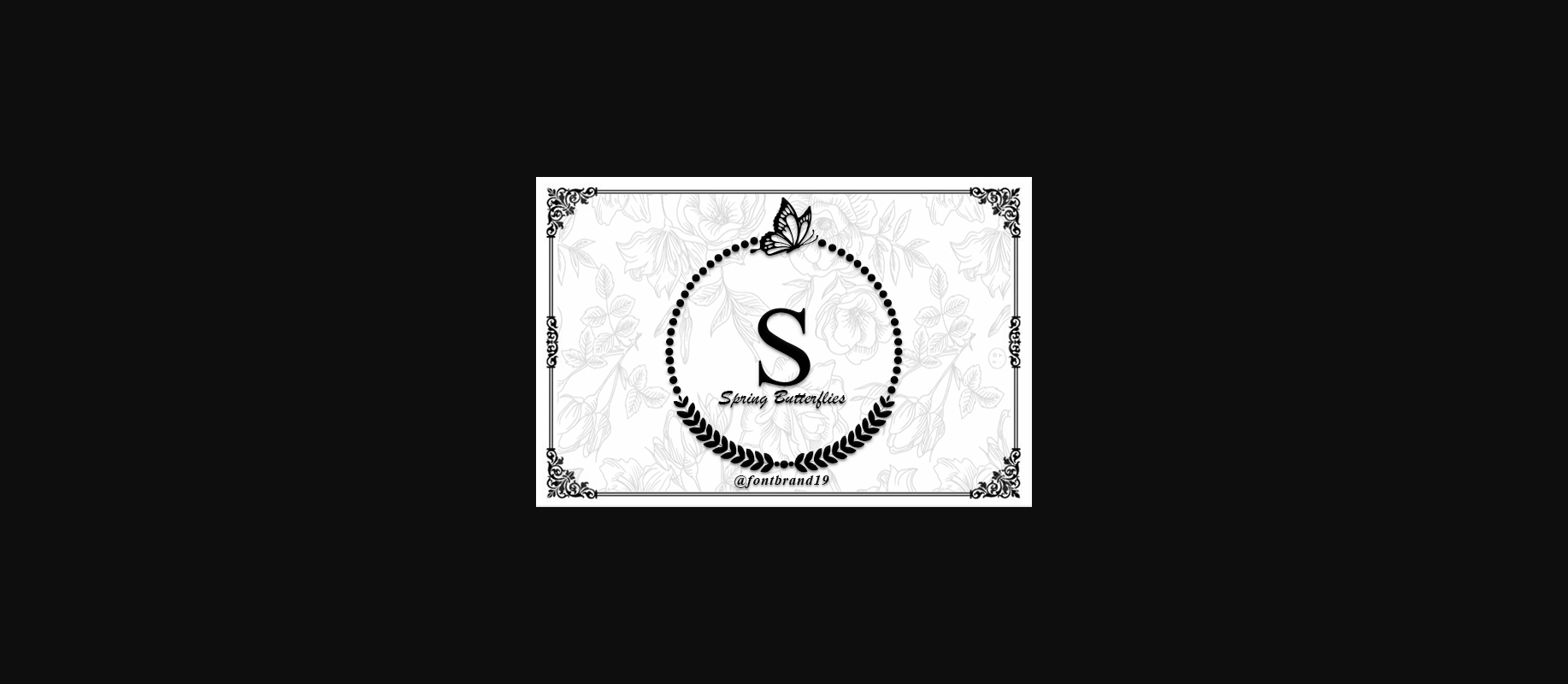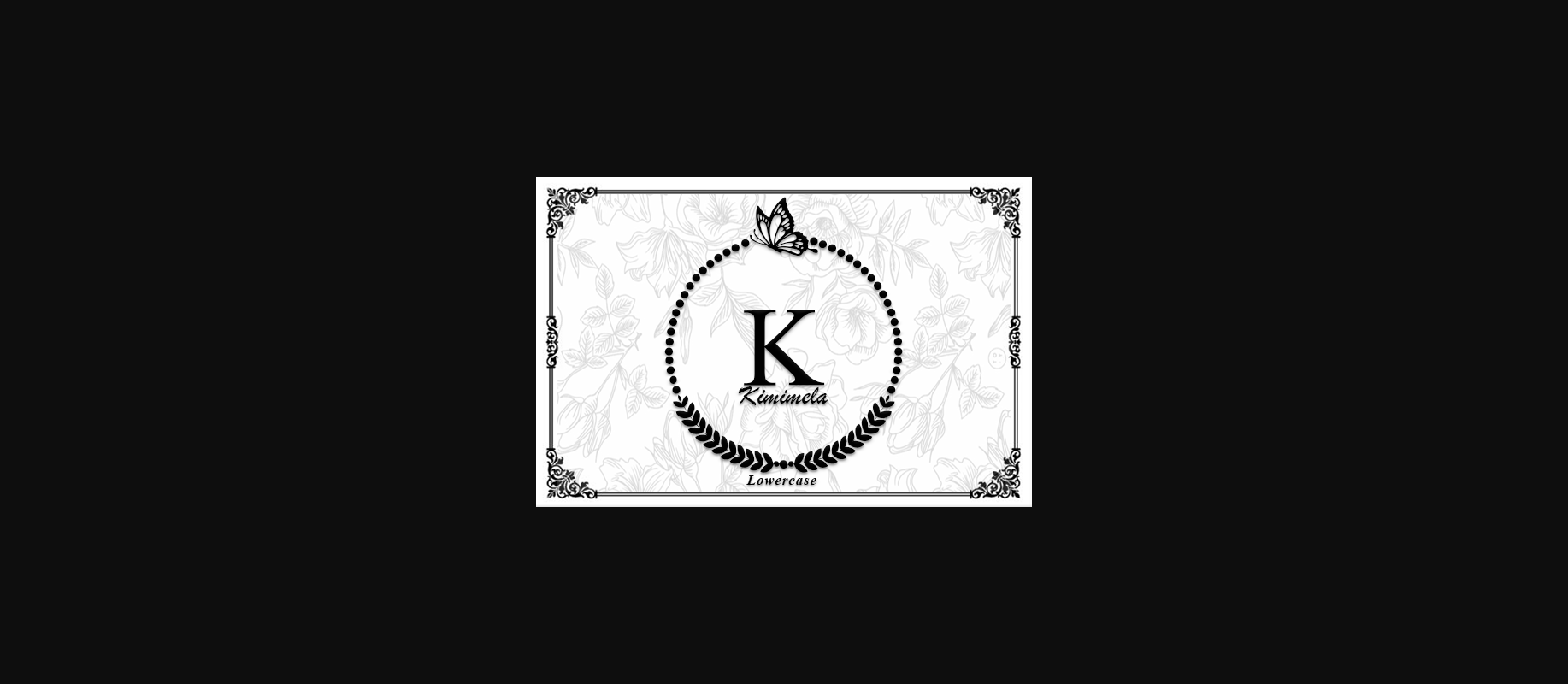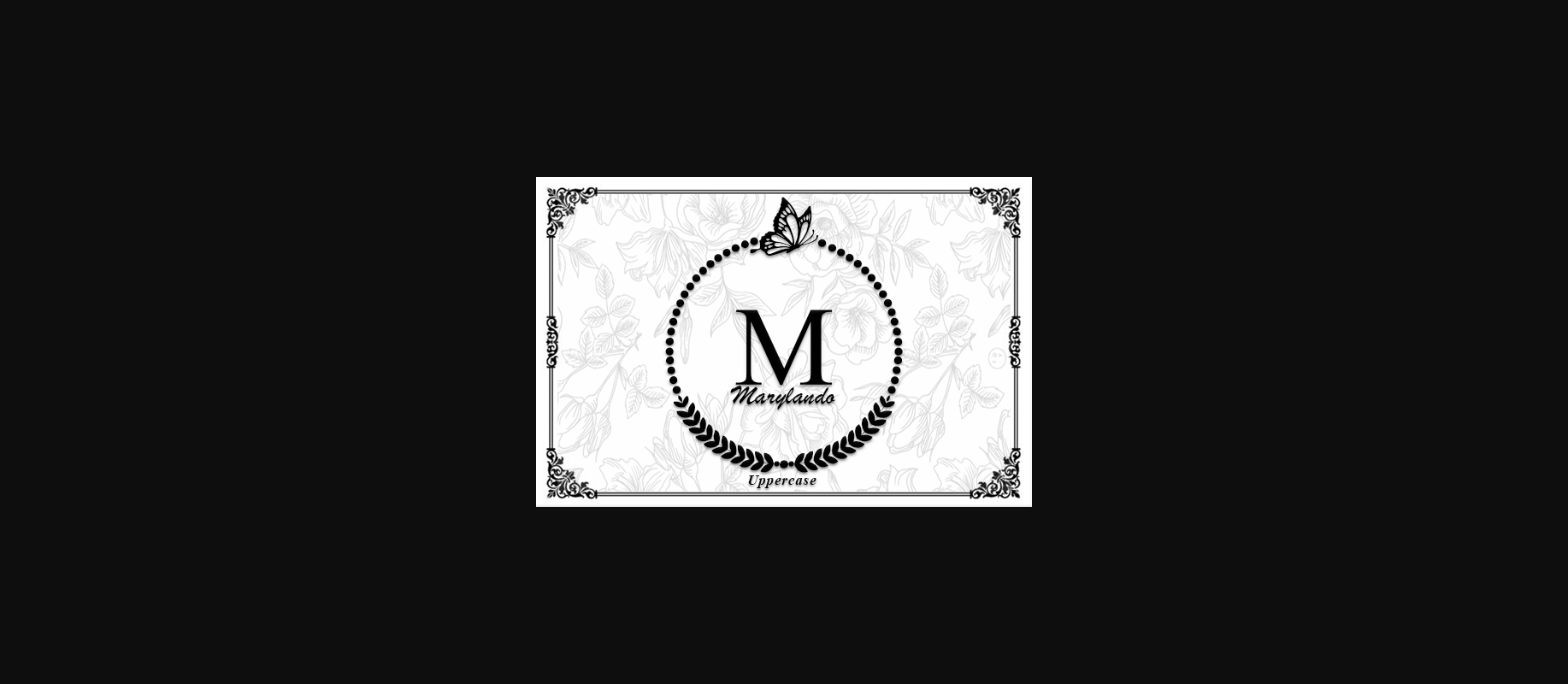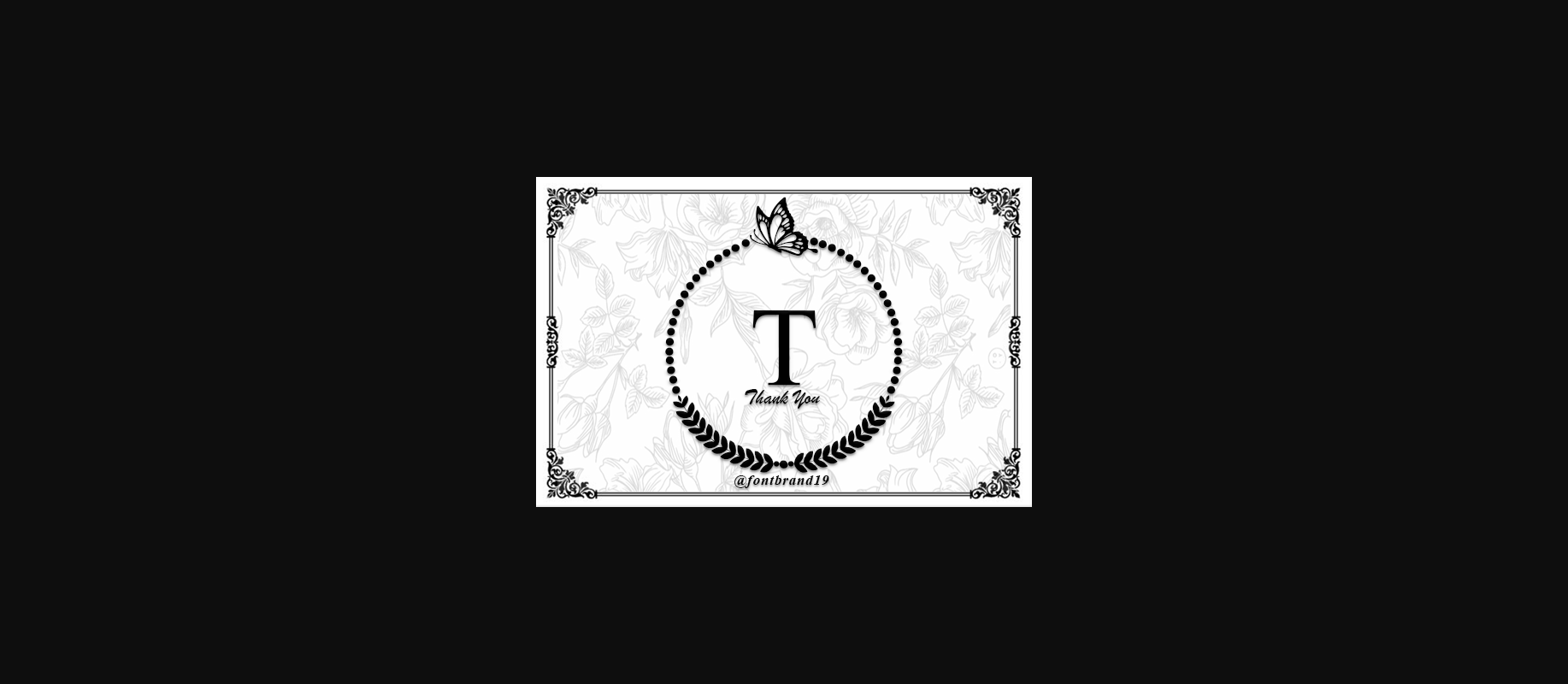
About Spring Butterflies Font
Spring Butterflies is a cool and uniquely crafted decorative font. Its fun and playful characters make it the perfect font for stickers, mugs, t-shirts, ornaments, Easter’s Day cards, event invitations, and many more!